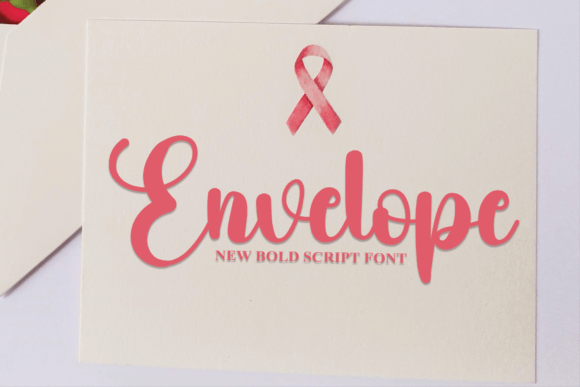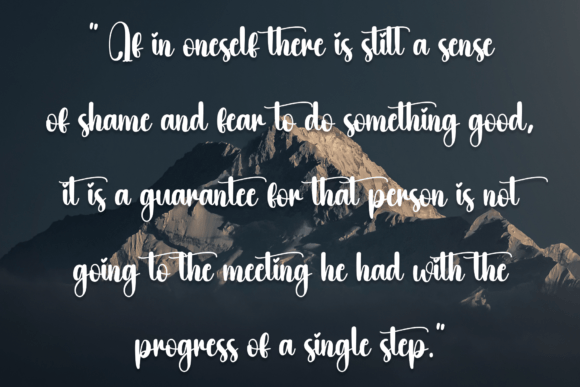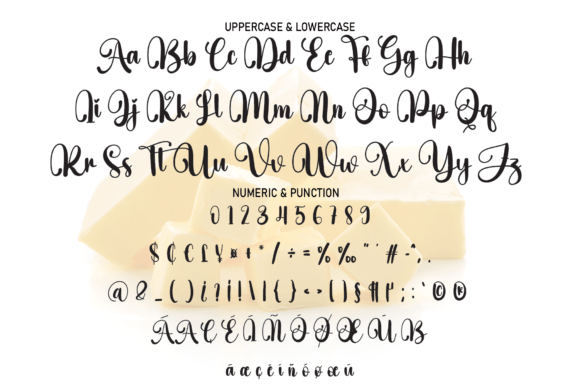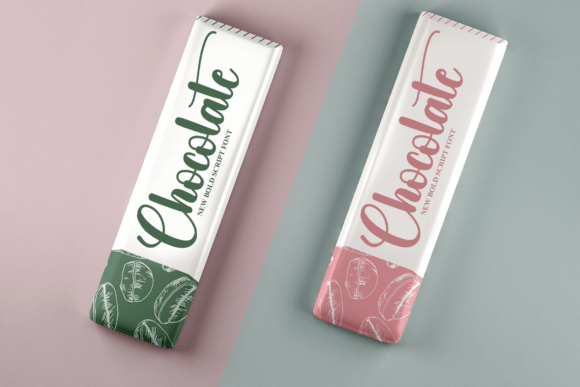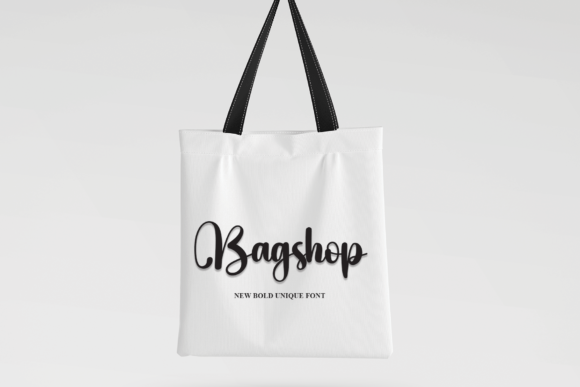
About Butter Signature Font
Butter Signature is a lovely and timeless handwritten font. It is the best choice for creating eye-catching logos, branding, and quotes. Every letter has a unique and beautiful touch, which will make your design come alive!